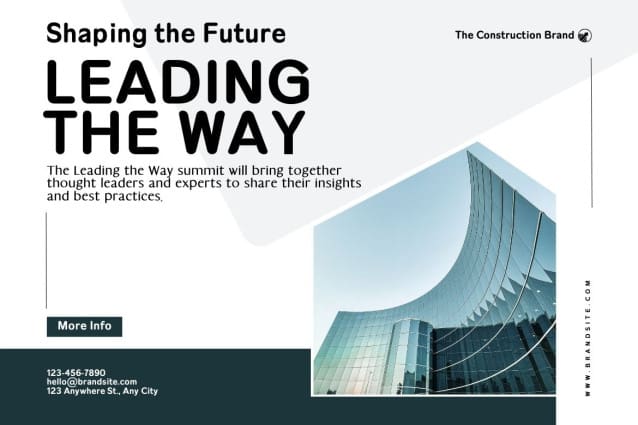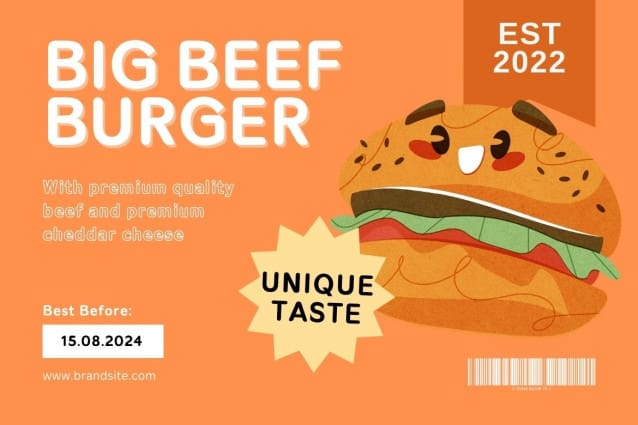
Roundora Font
Roundora Font, a stylish and easy-to-use font that makes your brand look modern and professional. With its smooth curves and clean lines, Roundora modern font is perfect for making your designs stand out.